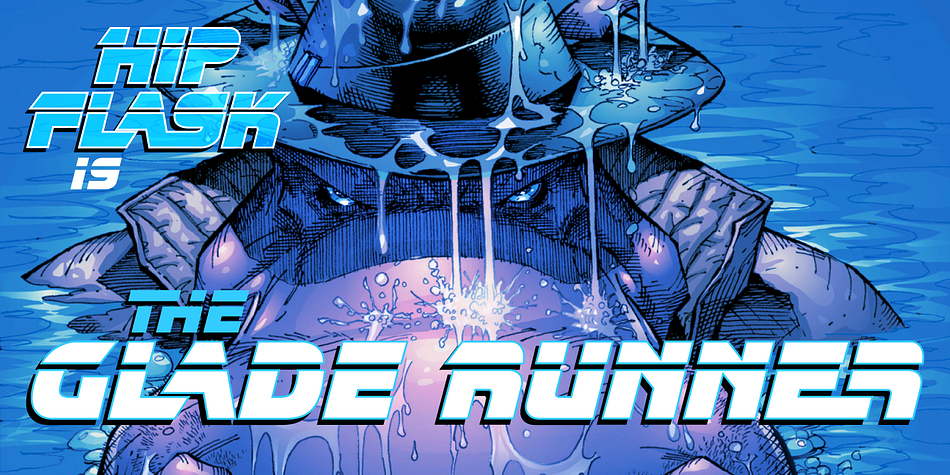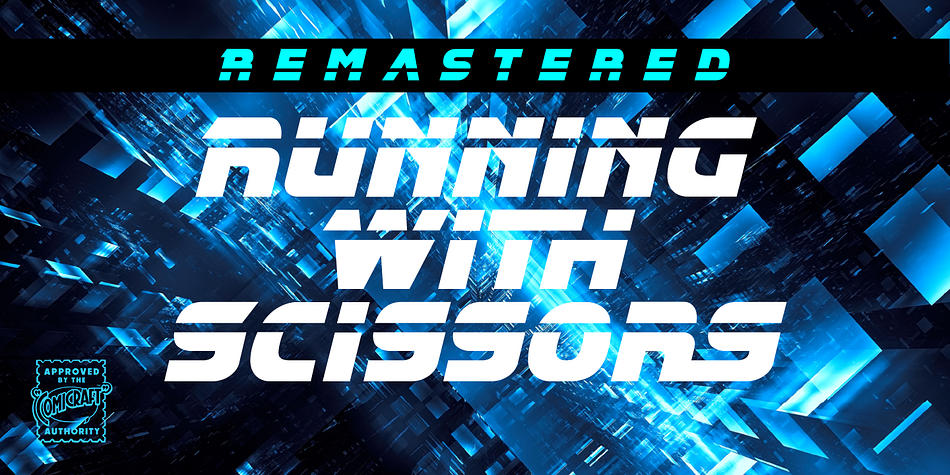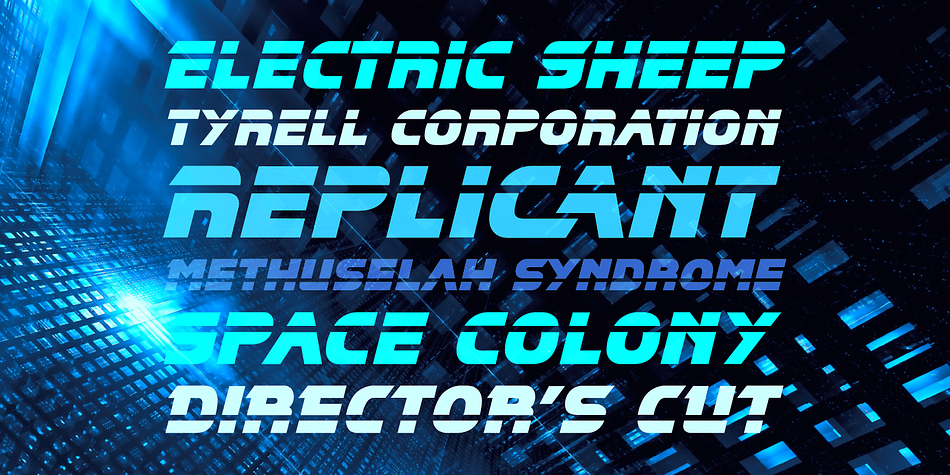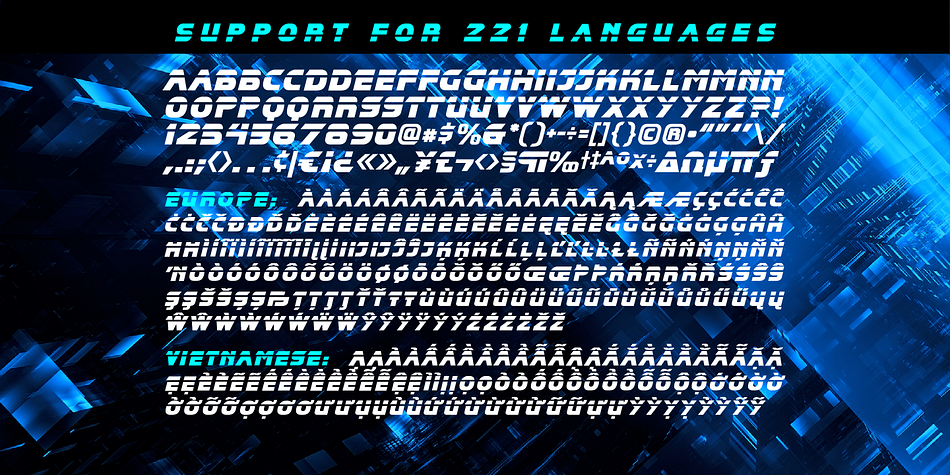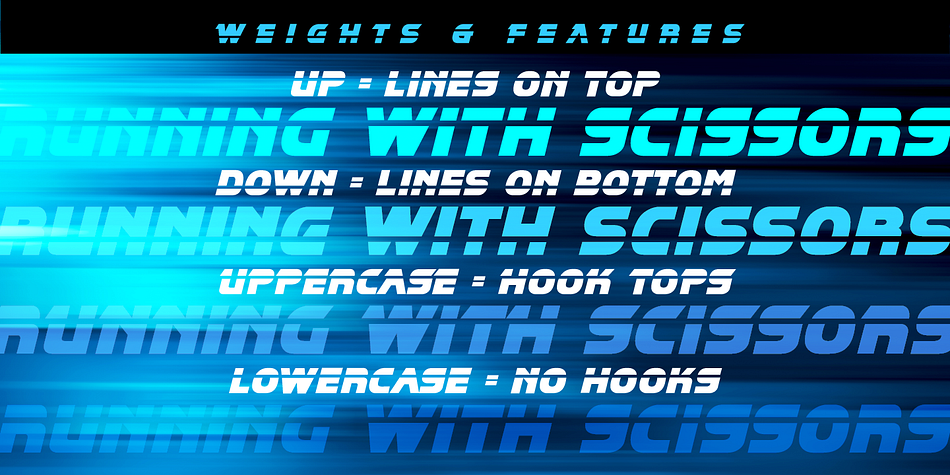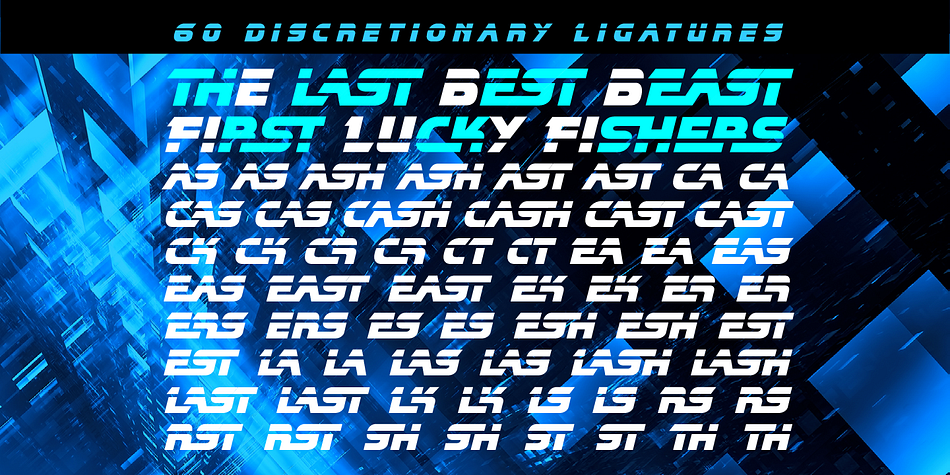
Designed by John Roshell, Running With Scissors is a display and display sans font family. This typeface has three styles and was published by Comicraft.
Your Mama told you not to do it, so you just KNOW this font will be good for you! In fact, you might say it’s a Cut Above the Rest. OUCH! Blade Runners: Be careful, you don’t want to retire a human by mistake…
Remastered Running With Scissors contains:
- separate Up & Down weights with hook-topped uppercase and hookless lowercase
- 60 automatic connecting ligatures for creating perfectly futuristic sci-fi logos!
- support for 221 languages including Western & Central Europe and Vietnamese